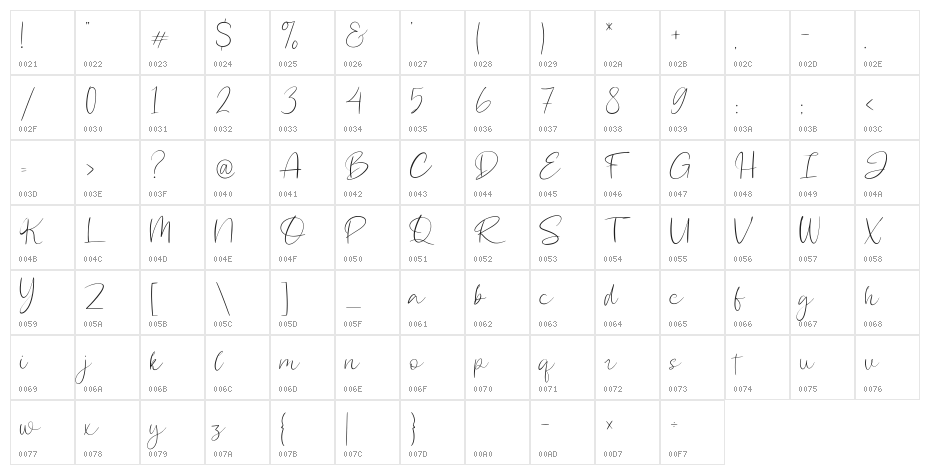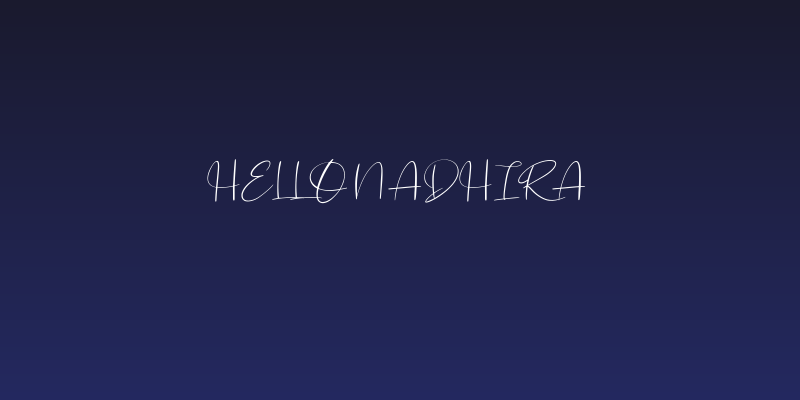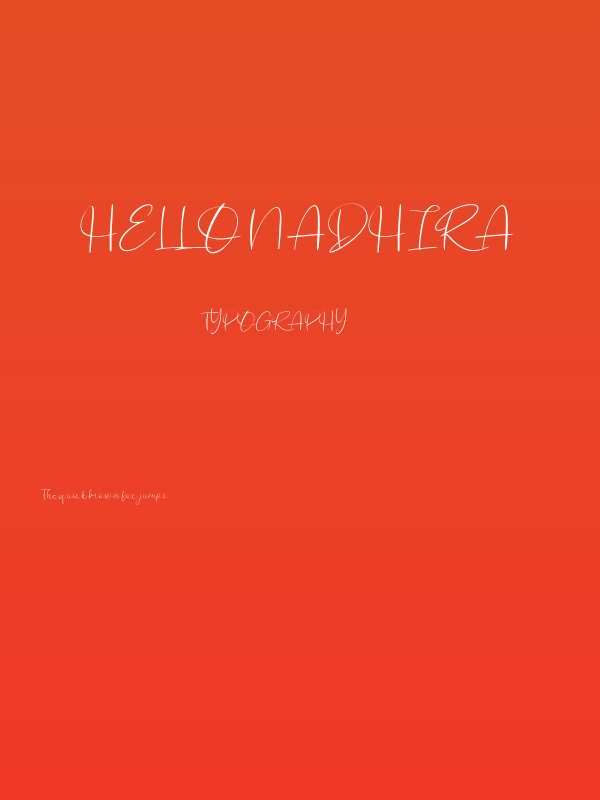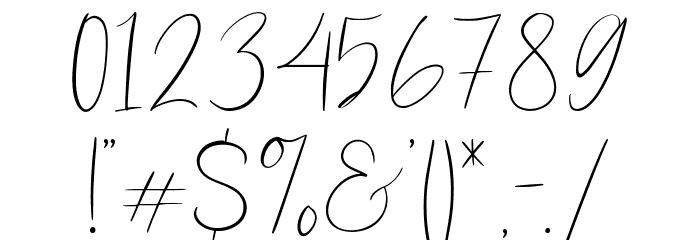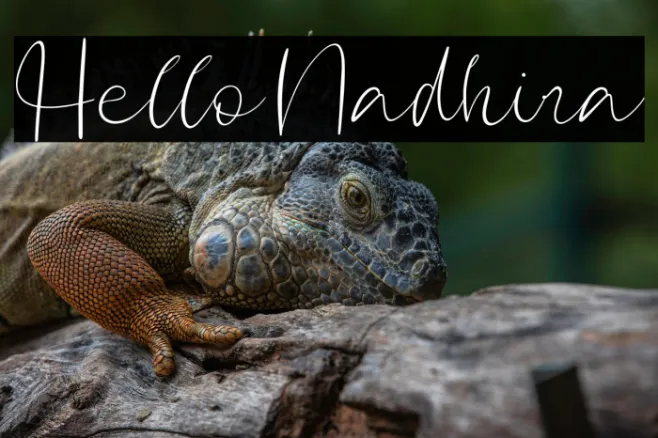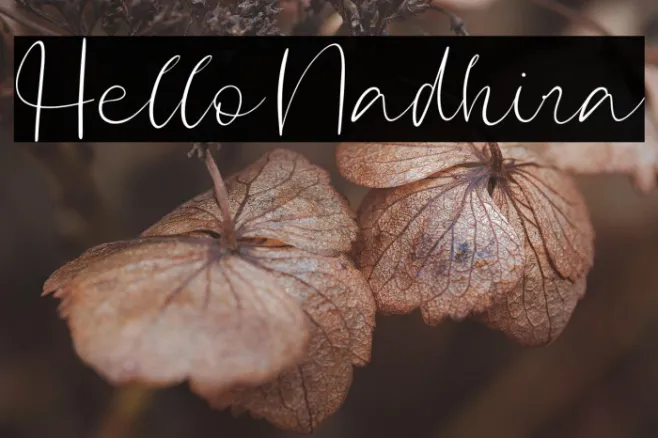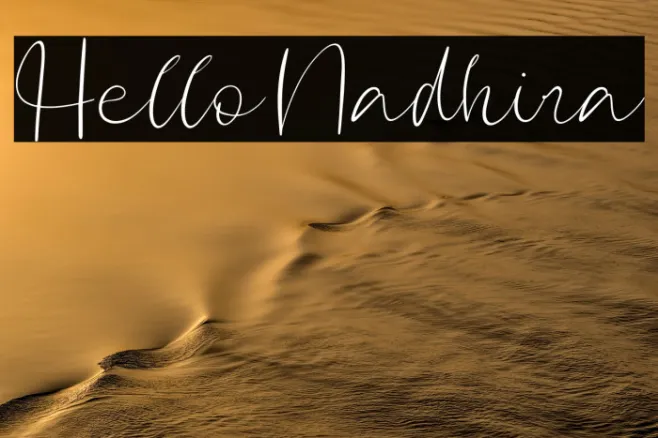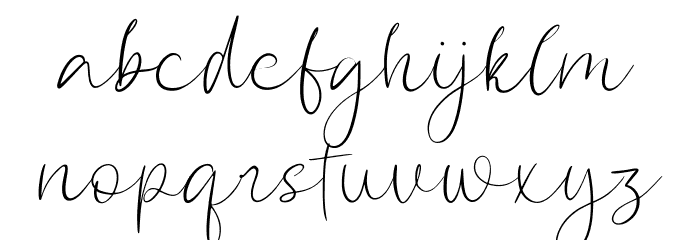
Hello Nadhira Font
Hello Nadhira Description
This font features an elegant and flowing script style, characterized by its smooth, cursive lines and graceful curves. The uppercase letters are tall and slightly slanted, giving a sense of sophistication and fluidity. The lowercase letters maintain a consistent style with delicate loops and connections, enhancing the overall aesthetic. Numbers and special characters are designed to match the script's elegance, ensuring a cohesive look across all elements. The font's thin strokes and airy spacing create a light and refined appearance, making it suitable for formal and decorative uses.